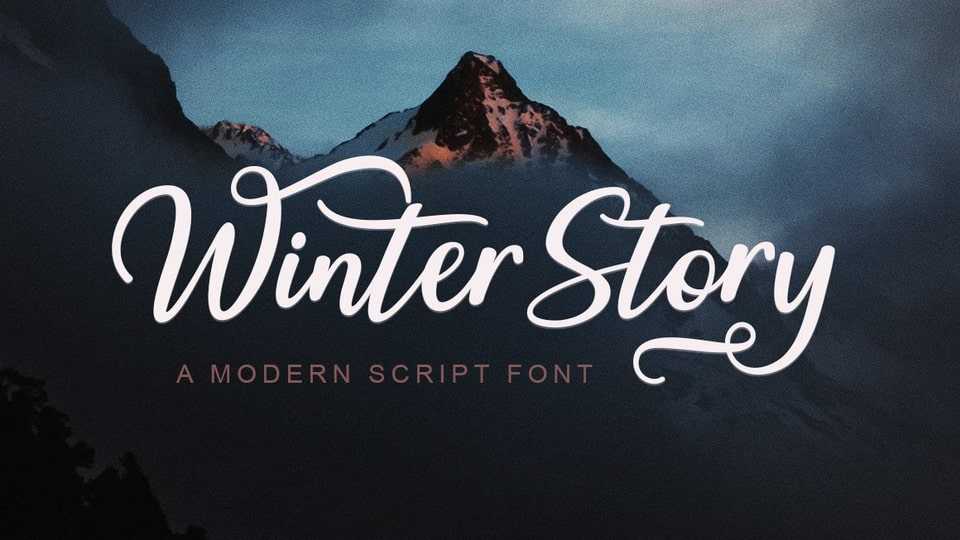
Download The Winter Story font, a whimsical handmade typeface. It’s fun style is perfect for post cards, posters, t-shirts, books, stickers, and much more!